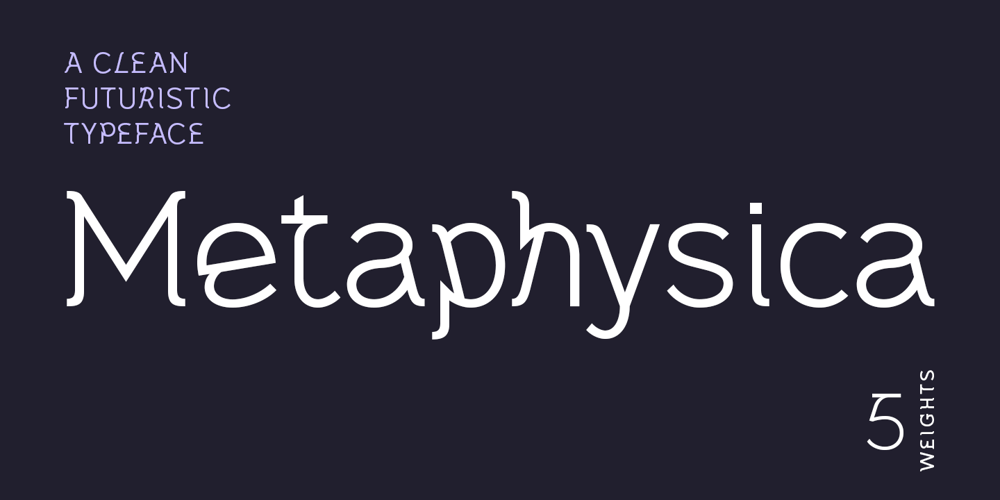
Metaphysica
Metaphysica font
Metaphysica Font Family was designed by Ayça Atalay and published by Ayca Atalay. Metaphysica contains 5 styles and family package options. Metaphysica is an unorthodox futuristic typeface that provides otherworldly zest without overly compromising typographic aesthetics. Combining weird angular beams and junctions with soft and round forms, Metaphysica finds the middle ground between sci-fi futurism and friendly legible sans.